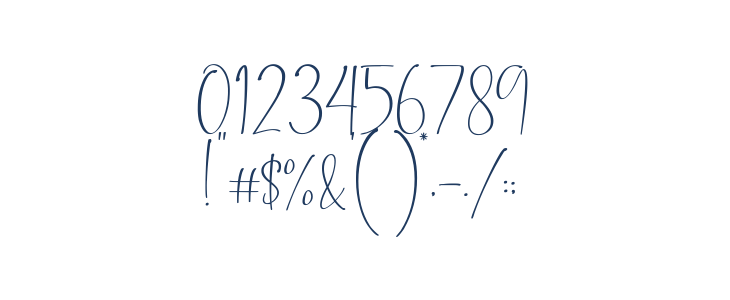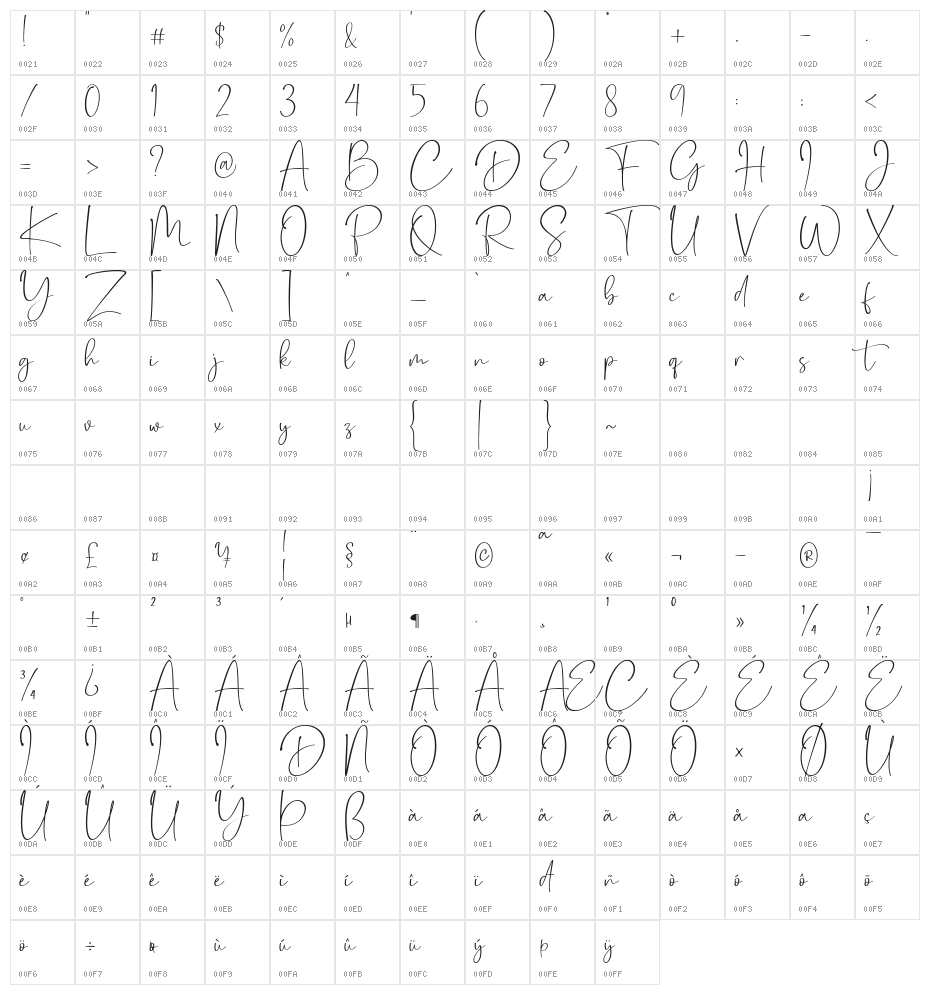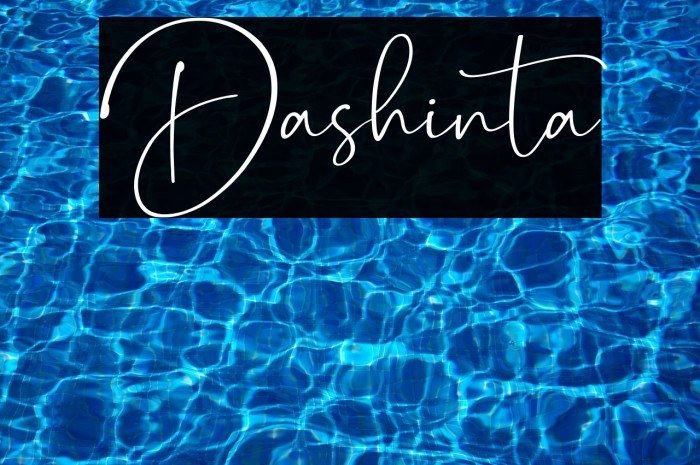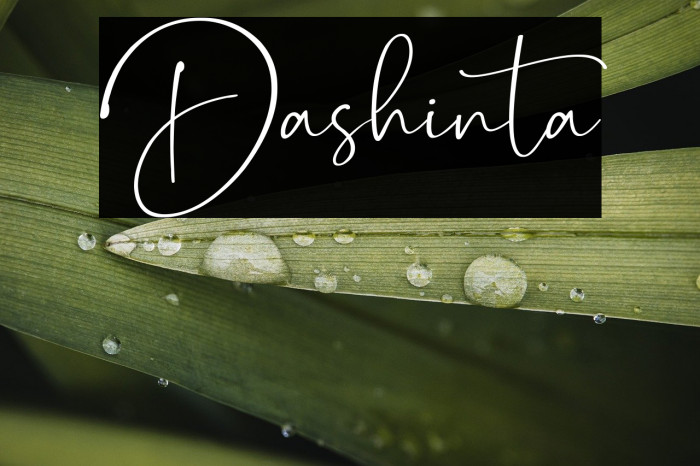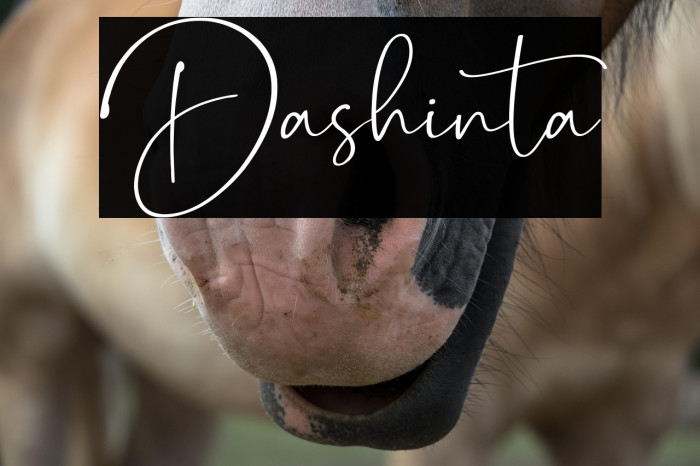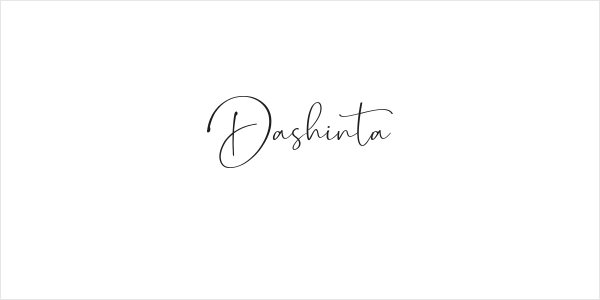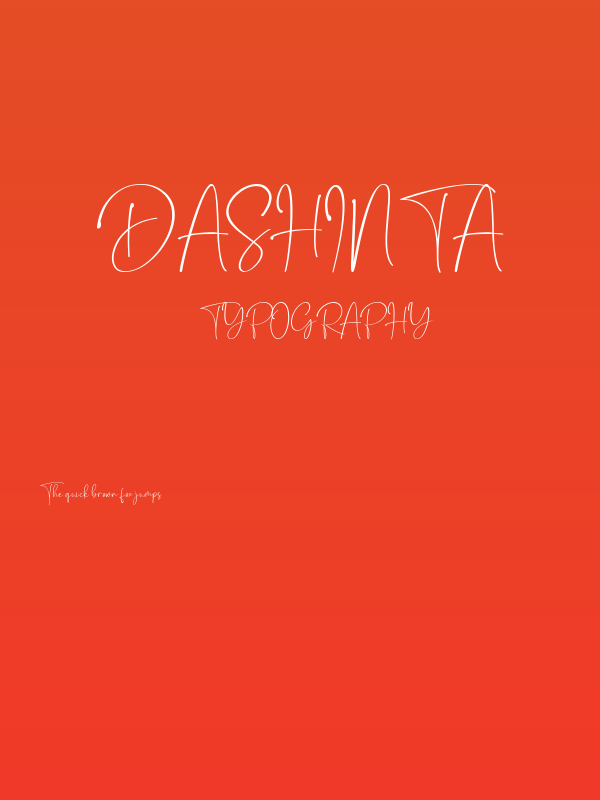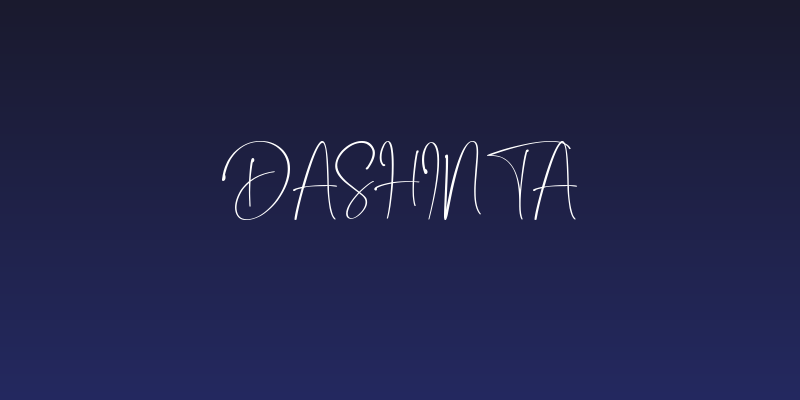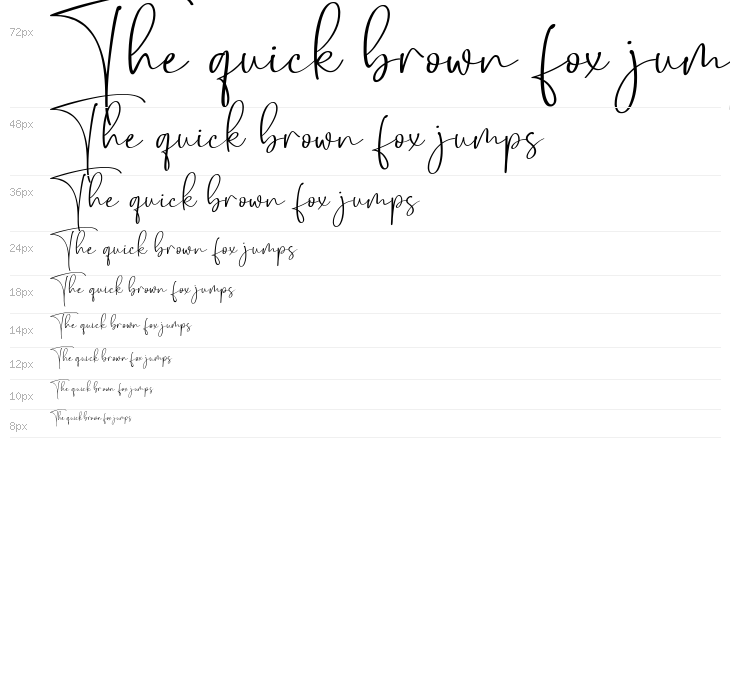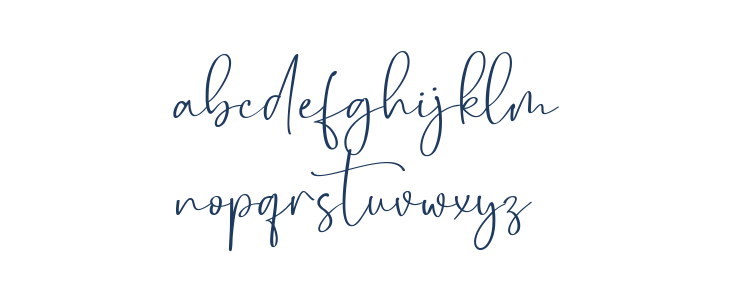
Dashinta Font
Dashinta Description
This elegant and flowing script font features a handwritten style with a modern twist. The uppercase letters are tall and slender, with a slight slant that adds a sense of movement and grace. The lowercase letters are more fluid, with loops and curves that create a harmonious balance. The numbers and special characters maintain the same fluidity, making them blend seamlessly with the letters. The font's thin strokes and high contrast give it a delicate appearance, while the overall design remains legible and stylish.
| Use Case | Logos, Invitations, Social Media Graphics |
| Proposed Projects | Ideal for wedding invitations, branding, social media graphics, and elegant logos. |